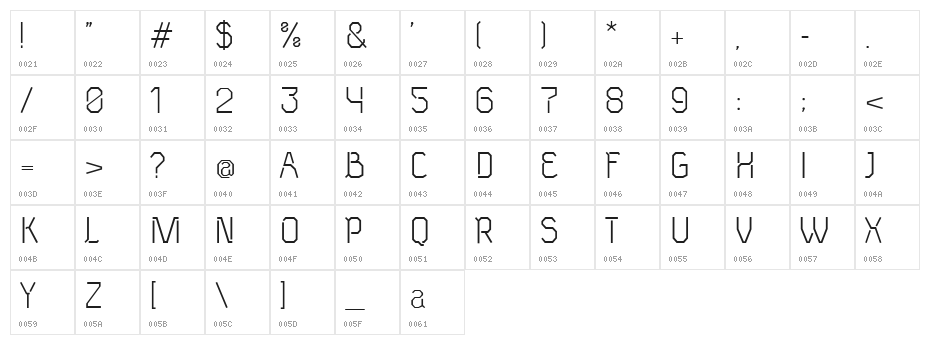
Neu Eichmass 100g Font
This font features a geometric and angular design, characterized by its sharp edges and straight lines. The uppercase and lowercase letters maintain a consistent height, giving it a uniform appearance. The numerals and special characters follow the same angular style, creating a cohesive look across all characters. The font's structure is reminiscent of digital or technical displays, with a modern and futuristic aesthetic. Its clean and precise lines make it suitable for projects that require a contemporary and edgy feel.
| Use Case | Logos, Headlines, Digital displays |
| Proposed Projects | Ideal for technology branding, digital interfaces, modern posters, and futuristic designs. |